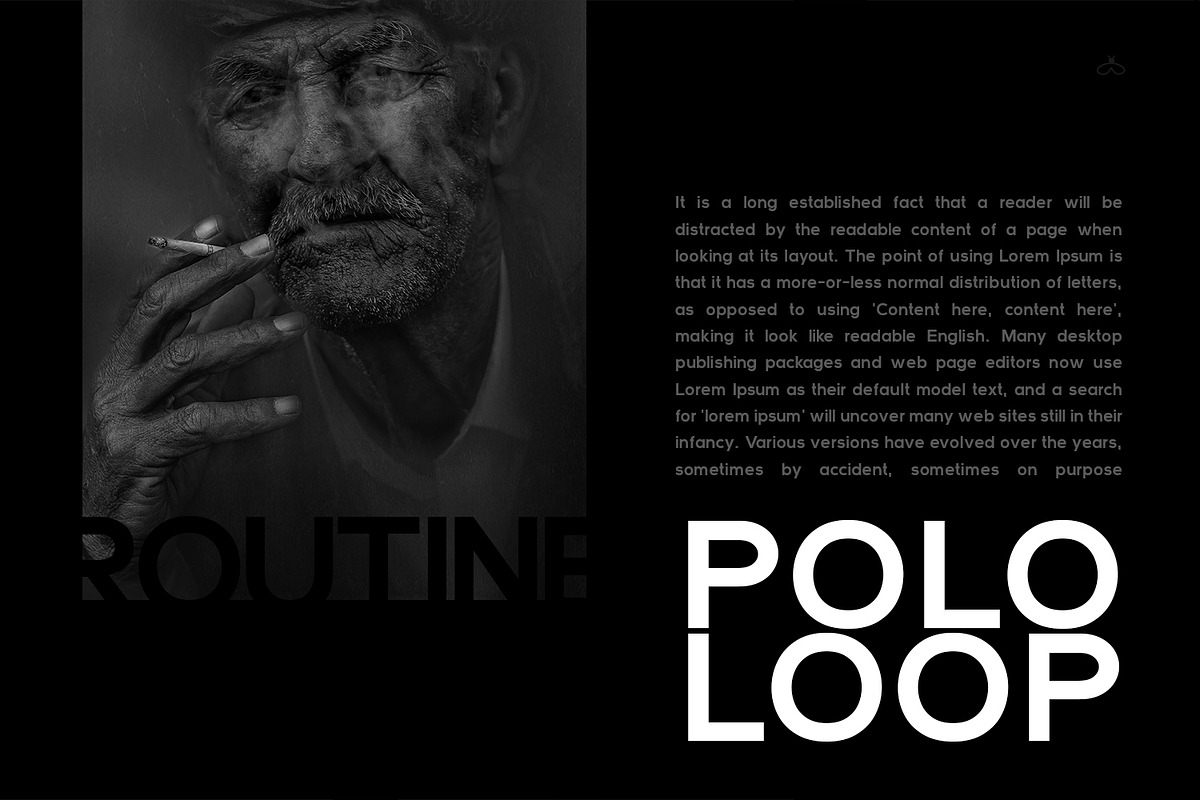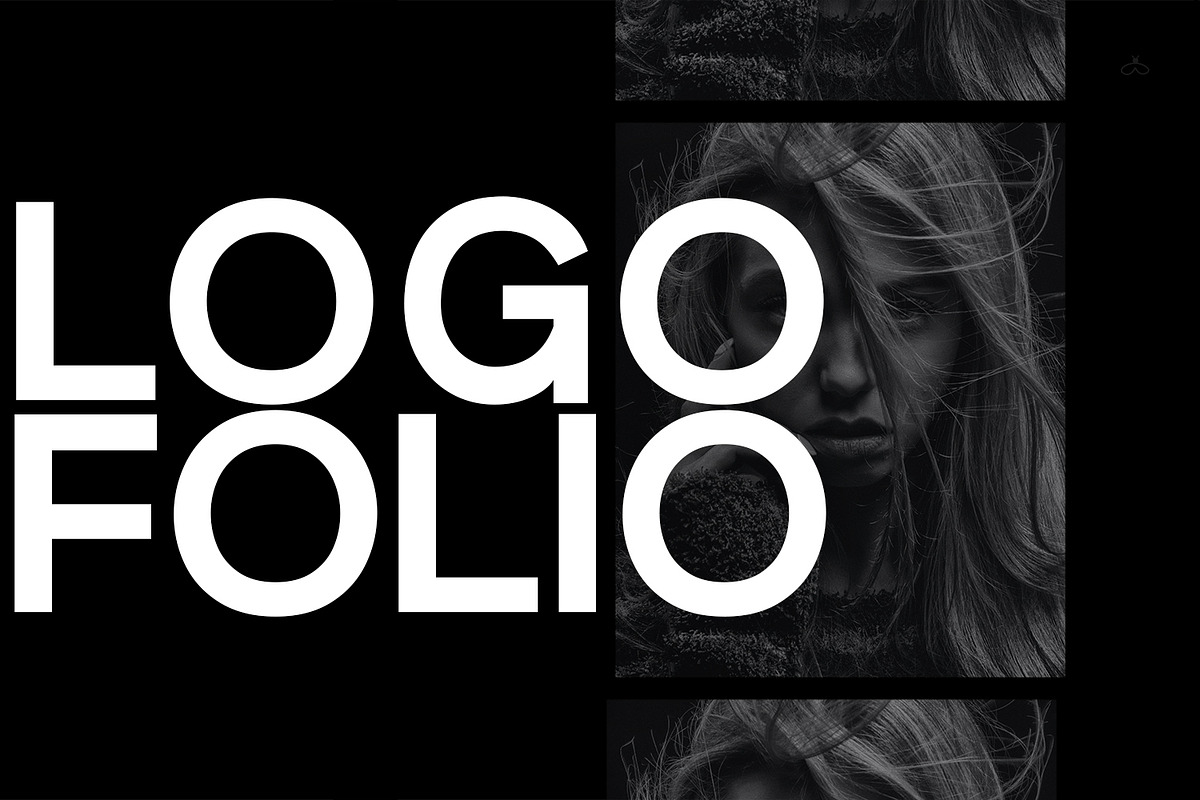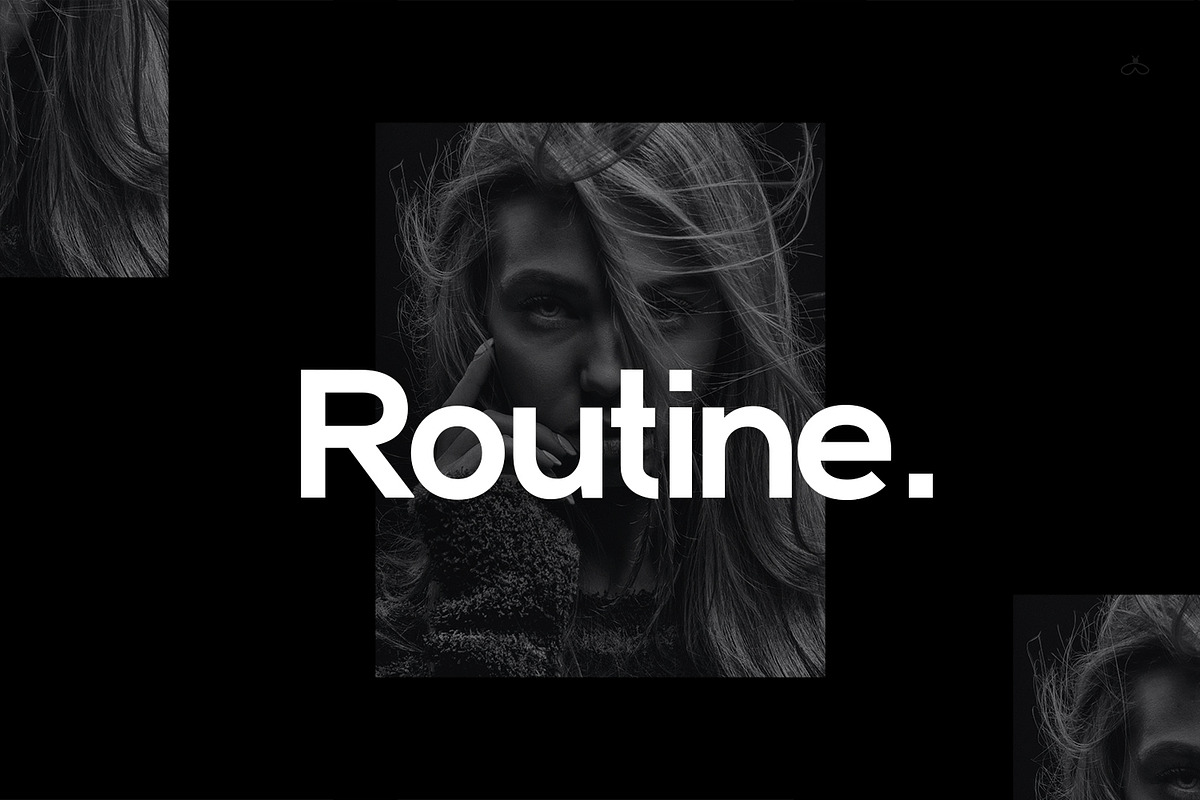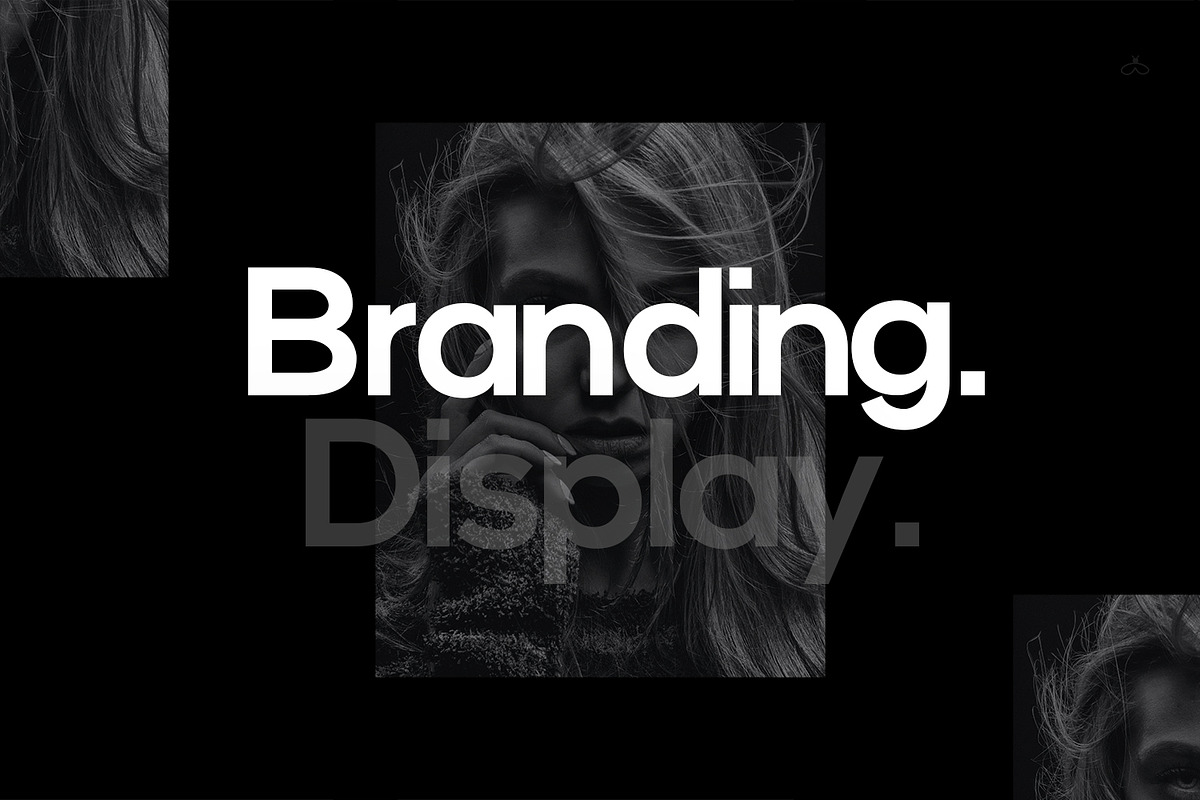
Routine Premium Font
Routine is a simple and elegant sans serif font. Fall in love with its incredibly versatile style and use it to create spectacular designs!